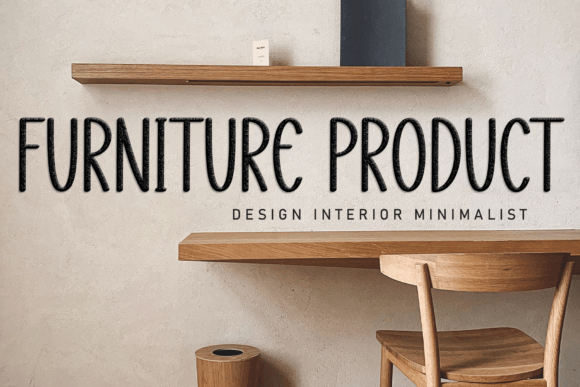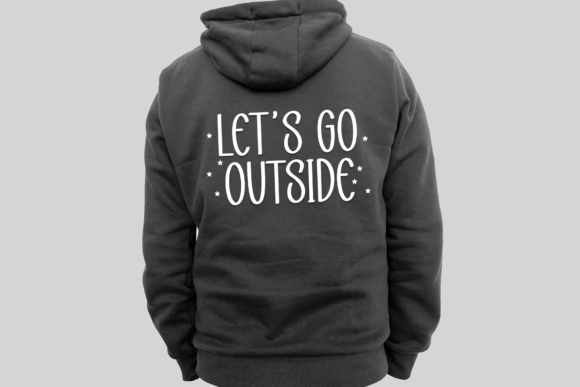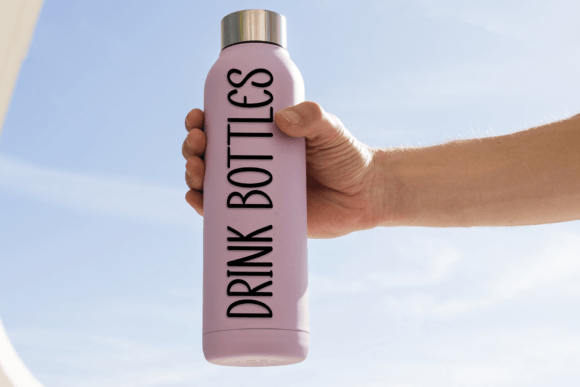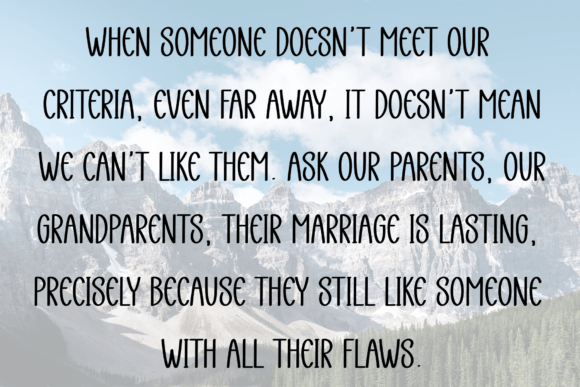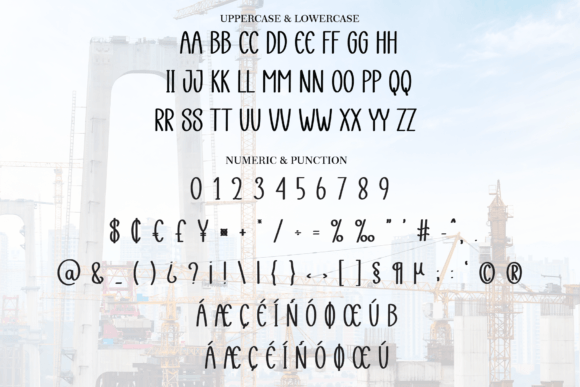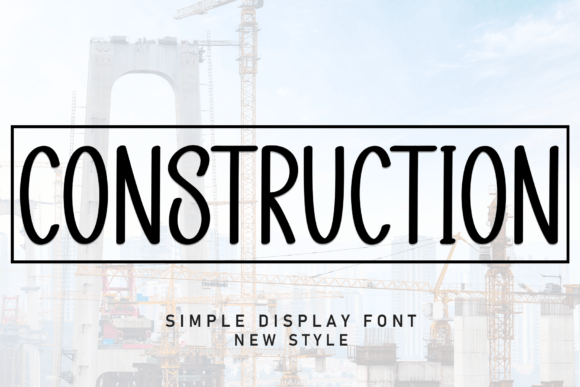
Construction Font: The Sweet and Friendly Handwritten Font for Your Design Needs
Are you looking for a font that can add a lovely touch to your designs? Look no further than Construction Font! This sweet and friendly handwritten font is perfect for creating beautiful wedding invitations, cards, and other designs that require a personal and charming touch. In this article, we’ll explore the features and benefits of Construction Font, and why it’s a must-have for designers and crafters.
What is Construction Font?
Construction Font is a handwritten font that is designed to be cute and fun. Its sweet and friendly style makes it ideal for a variety of design projects, from wedding invitations and cards to posters and social media graphics. The font is carefully crafted to provide a personal and approachable feel, making it perfect for designers who want to add a touch of warmth and personality to their designs.
Key Features of Construction Font
- Cute and Fun Design: Construction Font is designed to be playful and charming, making it perfect for designs that require a lighthearted and friendly touch.
- Handwritten Style: The font features a beautiful handwritten style that is both personal and approachable.
- Versatile: Construction Font can be used for a variety of design projects, from wedding invitations and cards to posters and social media graphics.
- Easy to Read: The font is carefully crafted to be easy to read, making it perfect for designs that require a clear and legible text.
Benefits of Using Construction Font
There are many benefits to using Construction Font in your designs. Here are a few:
- Adds a Personal Touch: Construction Font adds a personal and charming touch to your designs, making them stand out from the crowd.
- Perfect for Wedding and Event Designs: The font is ideal for wedding invitations, cards, and other event designs that require a sweet and friendly style.
- Great for Social Media Graphics: Construction Font is perfect for social media graphics, such as Facebook posts, Instagram stories, and Twitter headers.
Tips and Tricks for Using Construction Font
Here are a few tips and tricks to help you get the most out of Construction Font:
- Use it with Other Fonts: Construction Font pairs well with other fonts, such as serif and sans-serif fonts.
- Experiment with Colors: Try using different colors to add a pop of color to your design.
- Add Graphics and Images: Add graphics and images to your design to make it more visually appealing.
Construction Font is a sweet and friendly handwritten font that is perfect for designers and crafters who want to add a lovely touch to their designs. With its cute and fun design, versatile style, and easy-to-read text, Construction Font is a must-have for any designer. Whether you’re creating wedding invitations, cards, or social media graphics, Construction Font is the perfect choice. So why wait? Download Construction Font today and start creating beautiful designs that will stand out from the crowd!